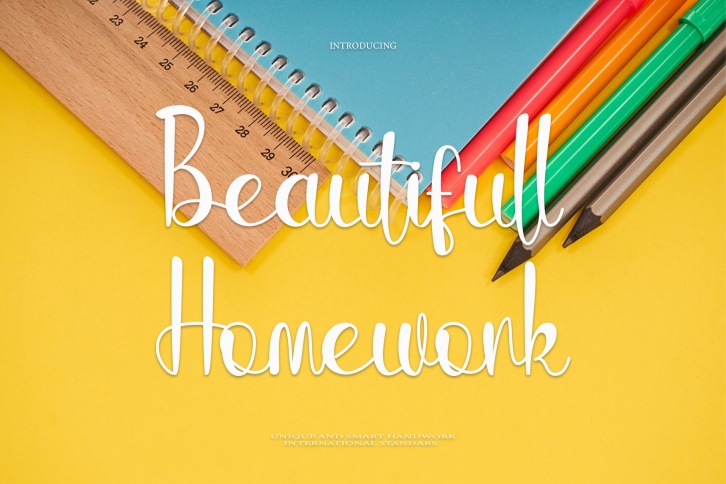
Beautifull Homework is a relaxed and adaptable handwritten font. Its natural and unique style makes it incredibly fitting to a large pool of designs. The only limit is your imagination!